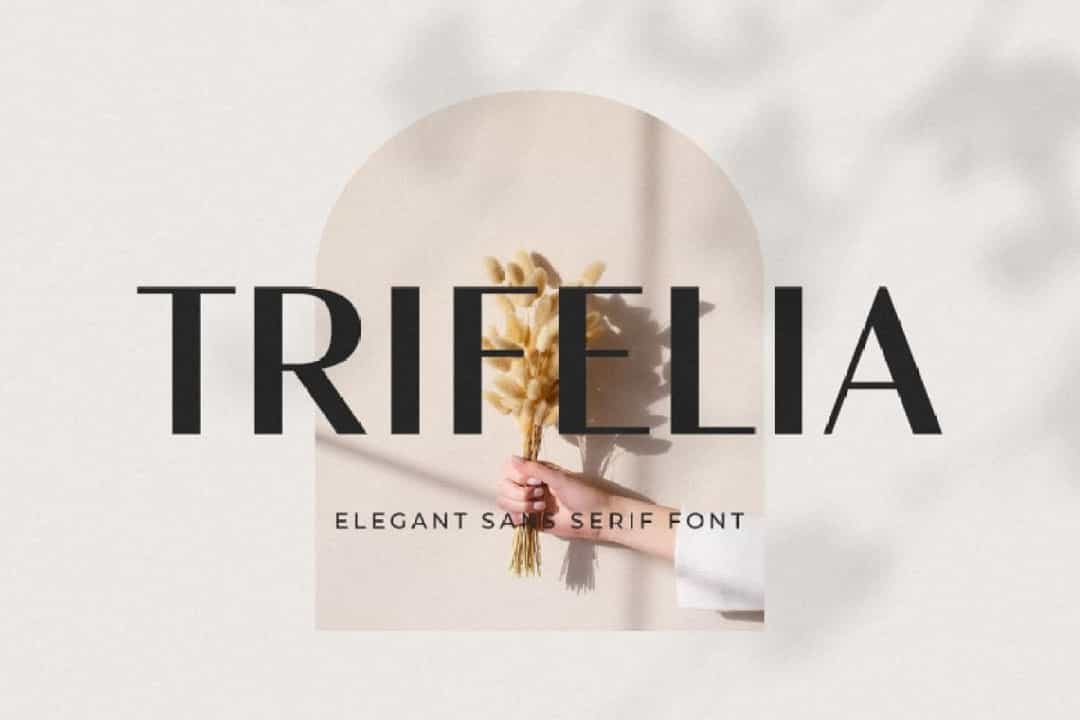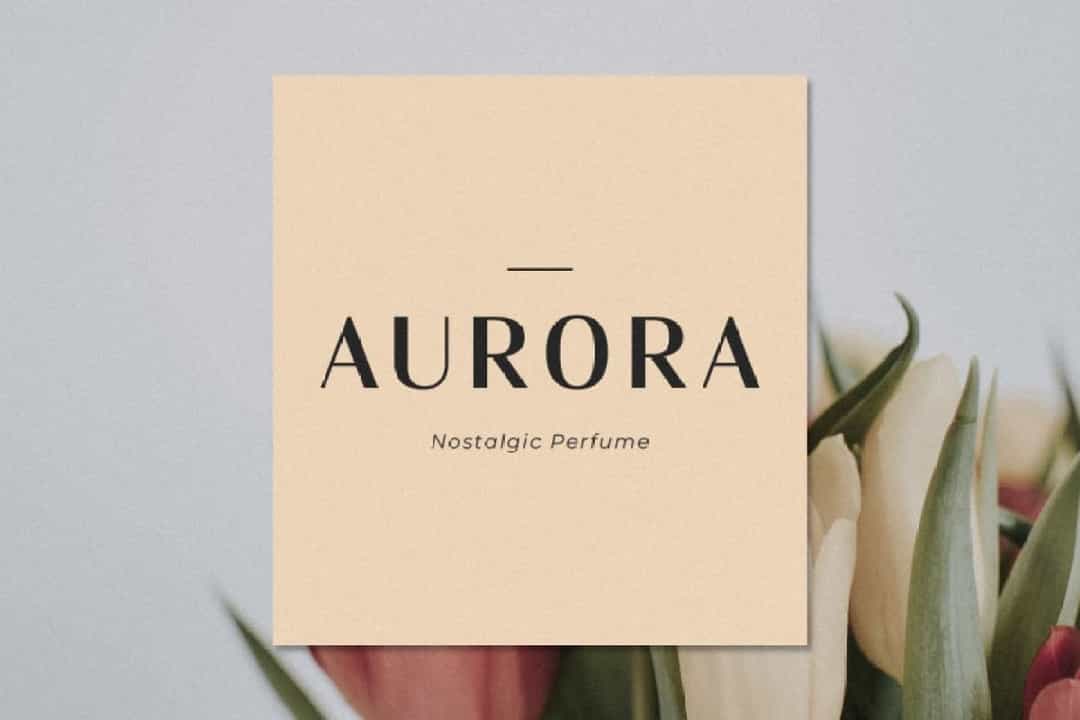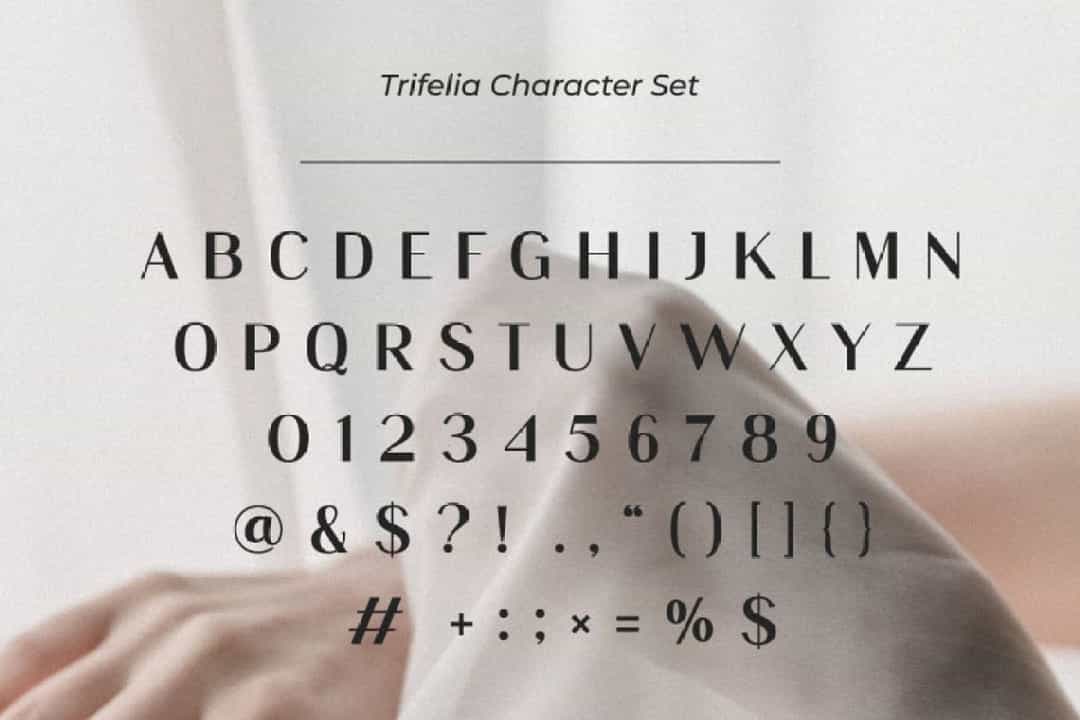
Trifelia is an elegant Sans Serif font which can be utilized as a display font in logos, headings, magazines, branding projects and invitations. With its clean lines and soft curves, Trifelia brings elegance to each project it graces.